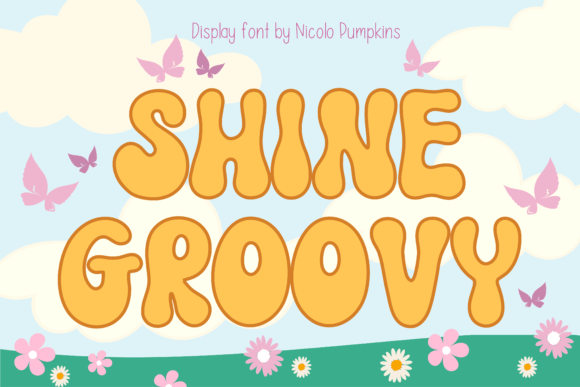
Introducing the latest addition to our collection of eye-catching display fonts, Shine Groovy Font! Created by Nicolo Pumpkins, this font is the perfect blend of retro and modern, making it an excellent choice for designers looking for a unique and playful touch.
Shine Groovy Font is not just any font, but a special Font for Cake Topper Cricut, making it an ideal choice for cake decorators and craft enthusiasts looking to add a touch of fun to their designs. This font will add an instant dose of fun and creativity to your cake topper designs, making them stand out and look stunning.
But that's not all! Shine Groovy Font is versatile and can be used for a wide range of design projects. Whether you're designing t-shirts, tote bags, hats, stickers, wedding designs, logos, cards, quotes, or anything in between, this font will add a unique and captivating touch to your designs.
With its playful and cute groovy retro style, Shine Groovy Font will capture the attention of your audience and make any creative idea stand out. The font is designed with a keen attention to detail, ensuring that every character is unique and stunning.